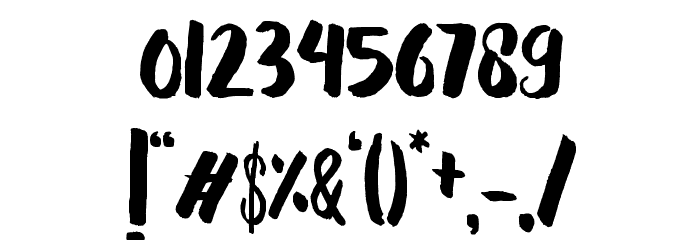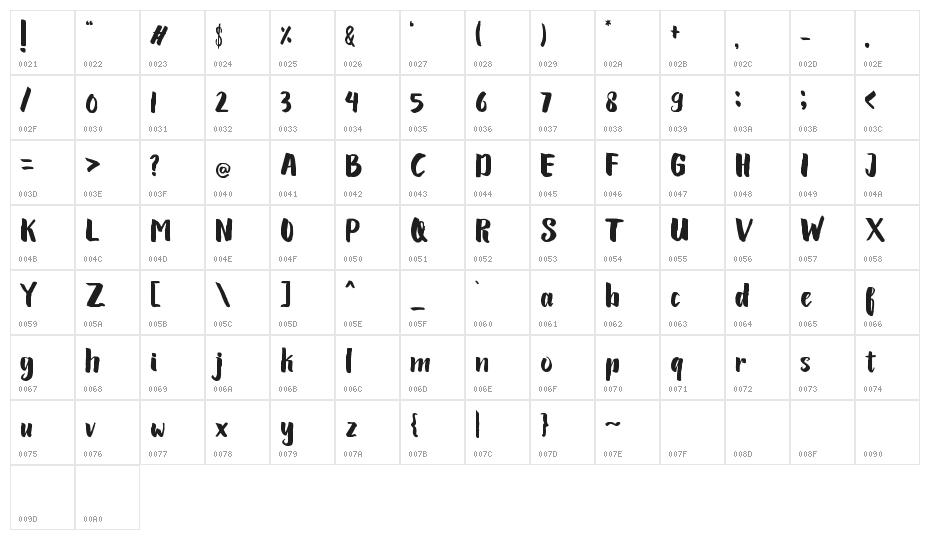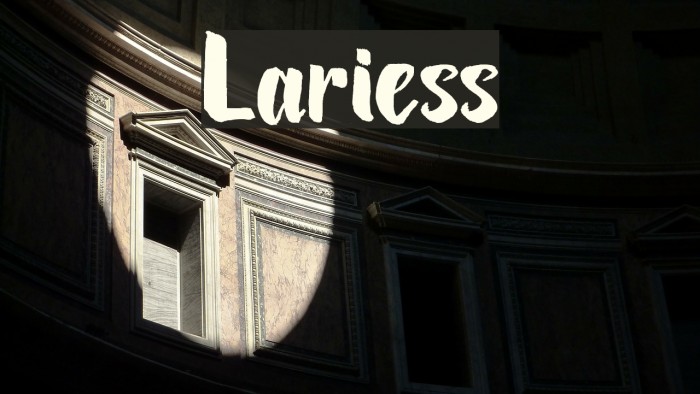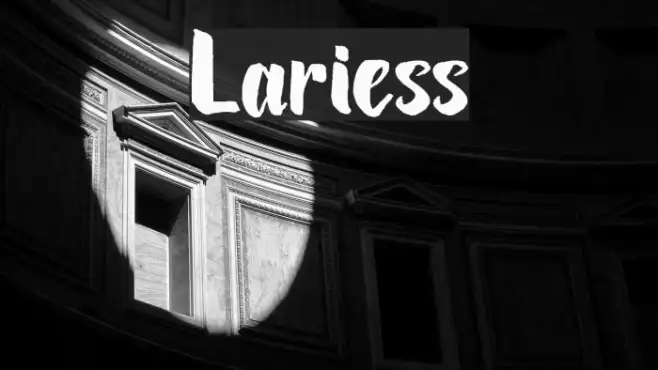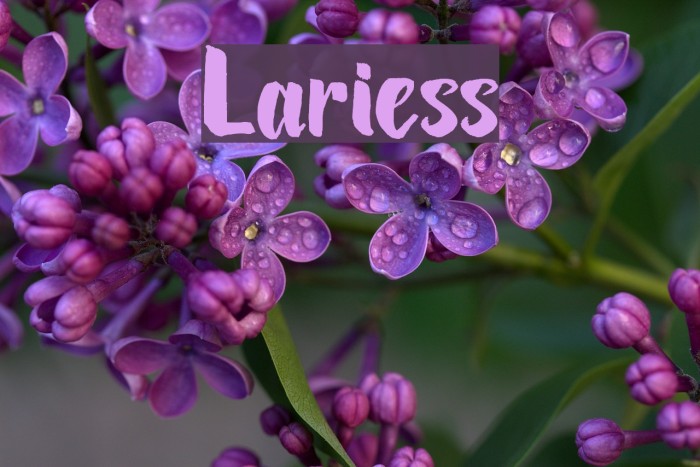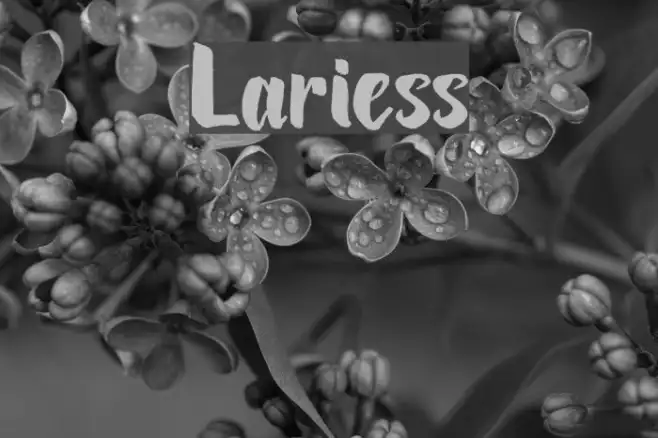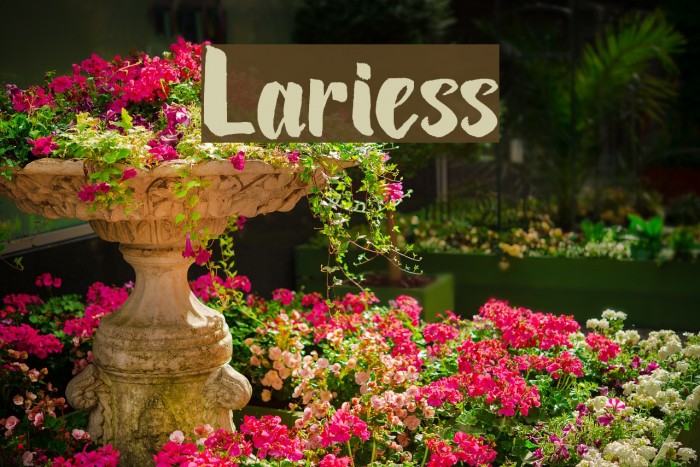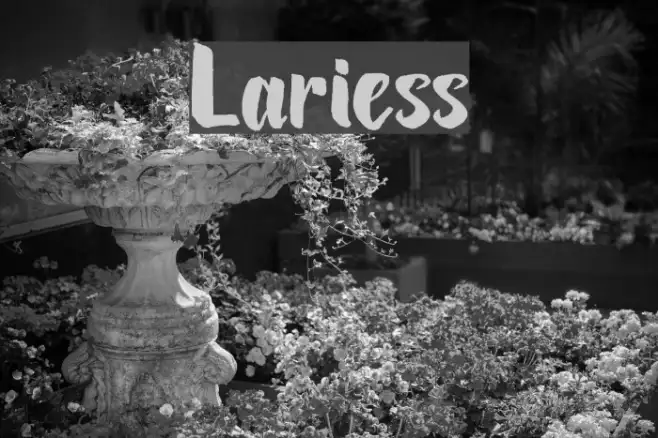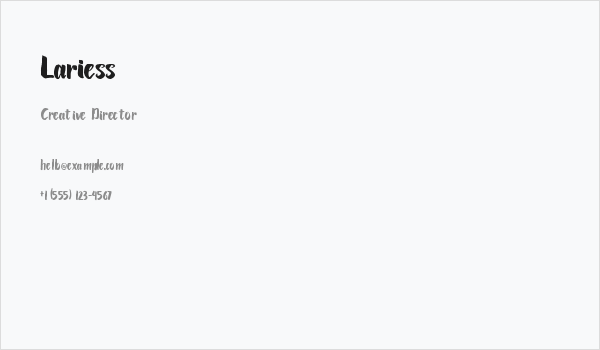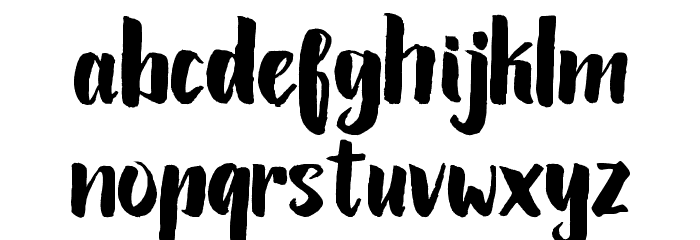
Lariess Font
Lariess Description
This font features a bold and expressive style with a hand-painted appearance, characterized by thick, uneven strokes that convey a sense of energy and dynamism. The uppercase letters are robust and impactful, while the lowercase letters maintain a consistent flow with slightly exaggerated curves and loops. The numerals and special characters follow the same bold aesthetic, making them stand out prominently. This font's unique brush-like texture adds a creative and artistic touch, making it suitable for projects that require a strong visual impact.
| Overall Style | Artistic, Expressive |
| Proposed Projects | Ideal for posters, branding, packaging, and any creative projects that require a bold, artistic touch. |